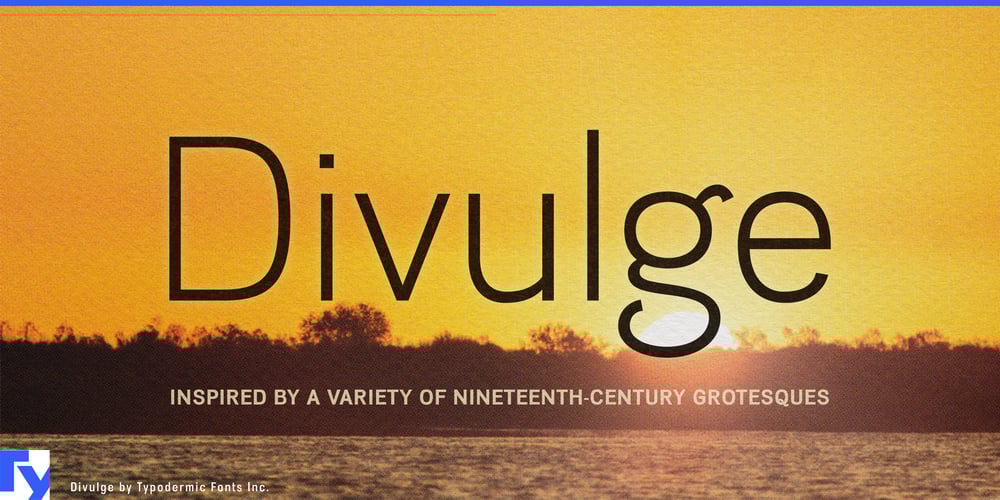
Divulge Font Family was designed by Ray Larabie and published by Typodermic. Divulge contains 12 styles and family package options. Divulge: The typeface that whispers secrets of typographic heritage. This creation distills the essence of nineteenth and early twentieth-century sans-serif metal type into a modern digital elixir.With an austere yet nuanced voice, Divulge bridges eras, offering designers a tool that feels both classic and contemporary. Its character set is a carefully curated collection of idiosyncrasies, each letterform a subtle rebellion against the sterility of cookie-cutter fonts. These quirks aren’t mere ornamentation; they’re the DNA of typographic history, encoded into each glyph. Divulge comes in a thoughtfully crafted array of styles. Three weights—light, regular, and bold—provide a range of tonal voices, from a delicate whisper to a confident declaration. Two widths expand your compositional possibilities, allowing you to fine-tune the rhythm and flow of your text. And for those moments that demand an extra touch of refinement, the elegant italics stand ready to add a flourish of sophistication.Picture your brand story told in Divulge, each word carrying the gravitas of history yet speaking directly to modern sensibilities. Imagine editorial layouts where headlines command attention with bold authority, while body text invites intimate reading with its lighter weights. Envision signage that catches the eye and holds it, the unique characteristics of Divulge lending an air of distinction to every letter. True to its roots in the golden age of typography, Divulge is fluent in a vast array of Latin-based European writing systems. From the bustling streets of Berlin to the sun-drenched plazas of Madrid, your message retains its refined character across linguistic borders.Divulge isn’t for designers seeking anonymity in their type choices. It’s for those who understand that true modernity is built on a foundation of history. It’s for brands that want to convey trustworthiness without sacrificing personality, for messages that need to resonate with both gravity and warmth. Ready to let your designs speak volumes? Embrace Divulge and watch as your projects take on a new dimension of typographic sophistication. In a world awash with fonts that shout for attention, Divulge stands apart—a typeface that commands respect through the quiet confidence of its pedigree.